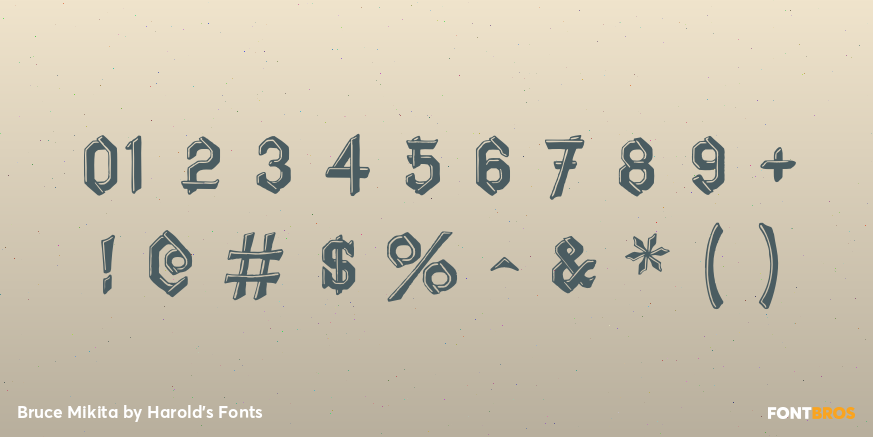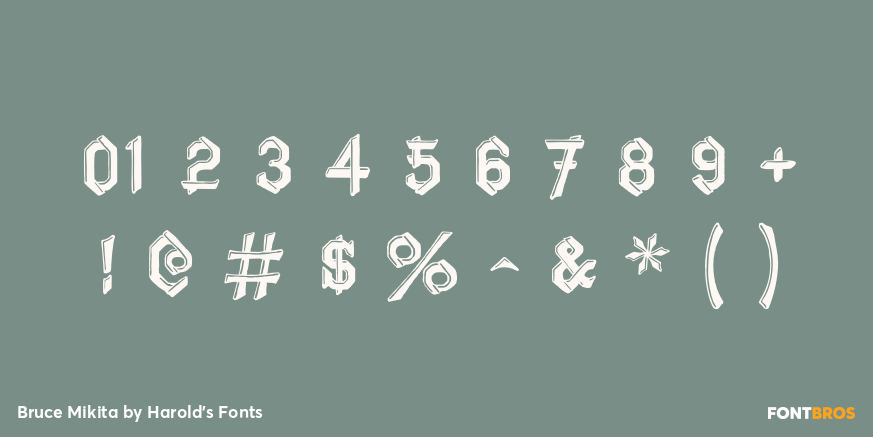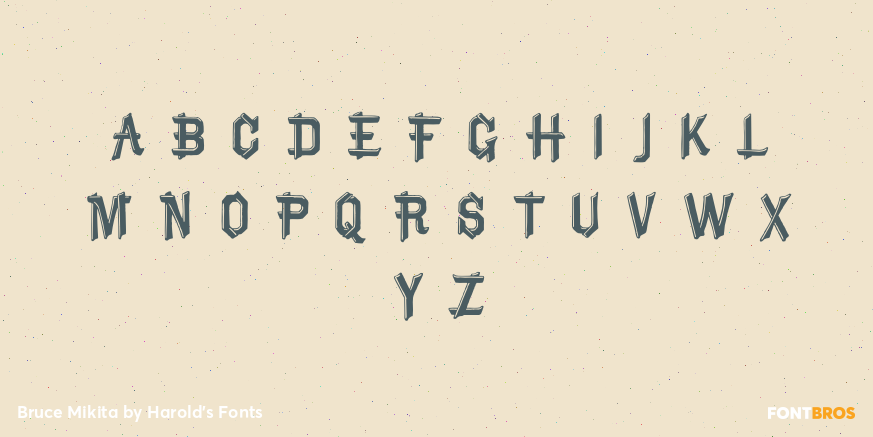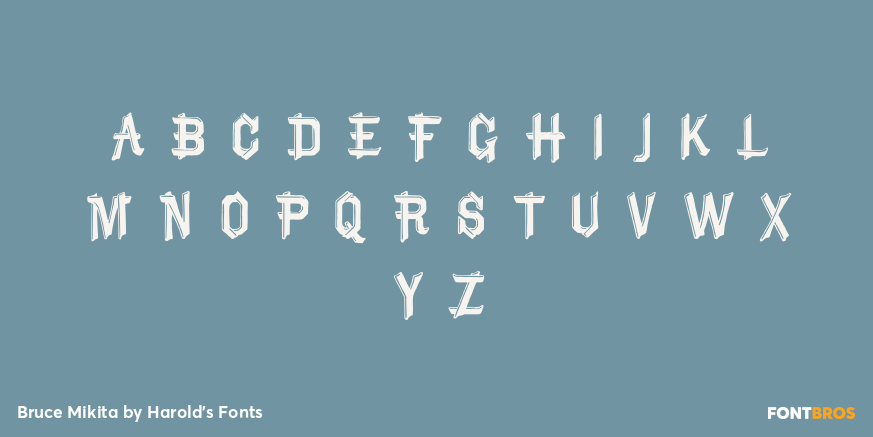
Bruce Mikita
Font Family by Harold's Fonts
BRUCE MIKITA was inspired by an analog font of the same name. It has a rustic, hand-crafted feel and suggests East Asian calligraphy. The highlight is a distinctive feature; I’ve also made a Solid version, which Dan X. Solo identified as “Lantern.”
A correspondent named Herman provided more history. “Since you ask, there is no Bruce Mikita. The type you digitized was issued by George Bruce’s Son & Co’s New-York Type-Foundry. It was patented 12 Feb 1867. It was called by them Ornamented no. 1048. When Phoenix typefounders got some mats they invented the fanciful name Mikita, but this was almost a century later.”